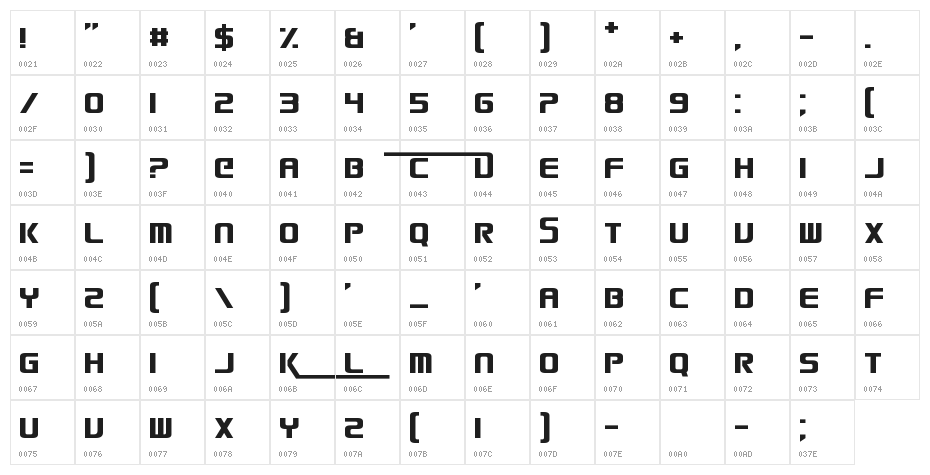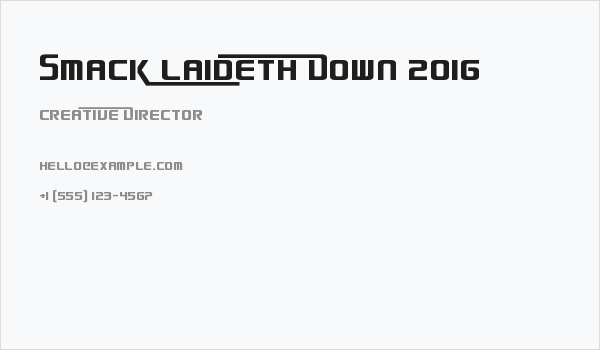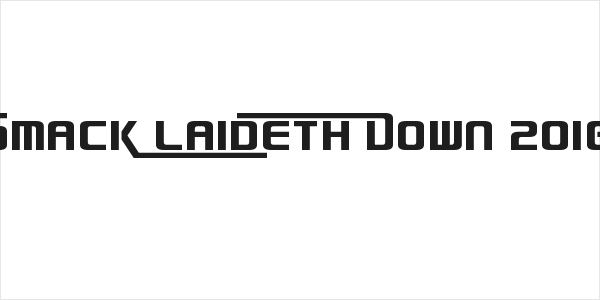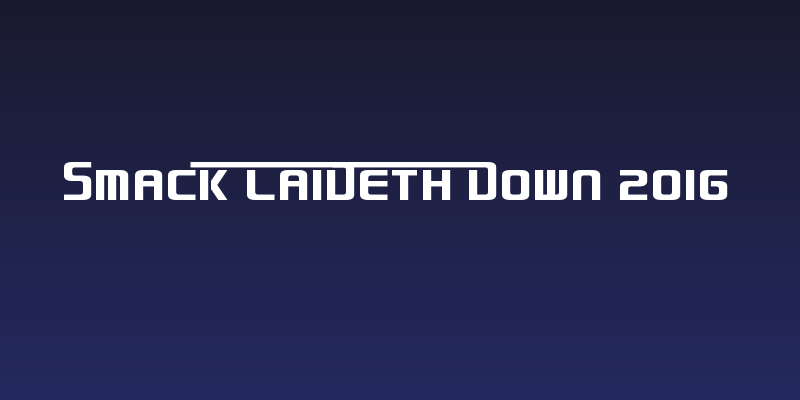
Smack Laideth Down 2016 Font
This font features a bold, geometric design with a modern and futuristic aesthetic. The characters are constructed with clean, straight lines and sharp angles, giving them a strong and assertive appearance. The uppercase letters have a uniform height, while the lowercase letters maintain a consistent style that complements the uppercase. The numbers are equally bold and geometric, ensuring readability and visual impact. Special characters are designed to match the overall style, making this font versatile for various applications. The consistent stroke width throughout the characters provides a cohesive look, while the unique design elements add a distinctive flair.
| Proposed Projects | Ideal for technology branding, sci-fi themed projects, video game interfaces, and modern advertising. |